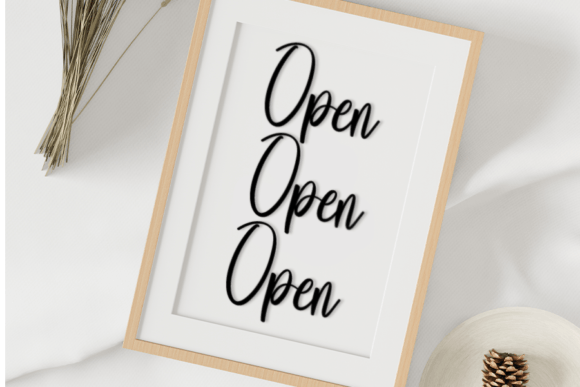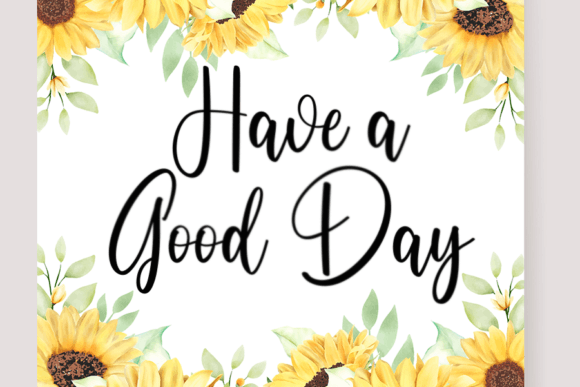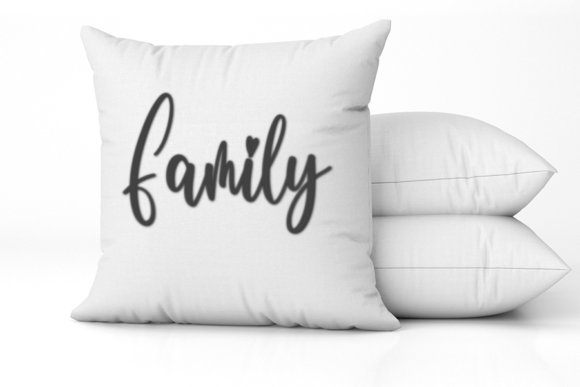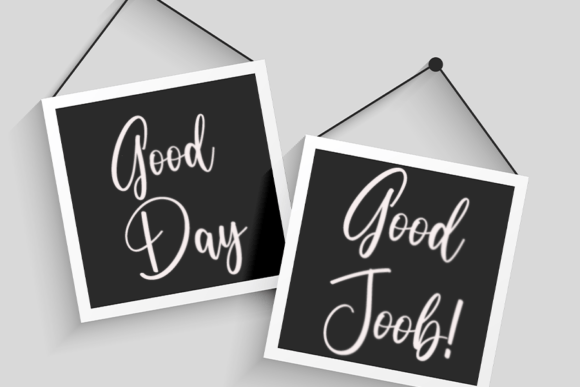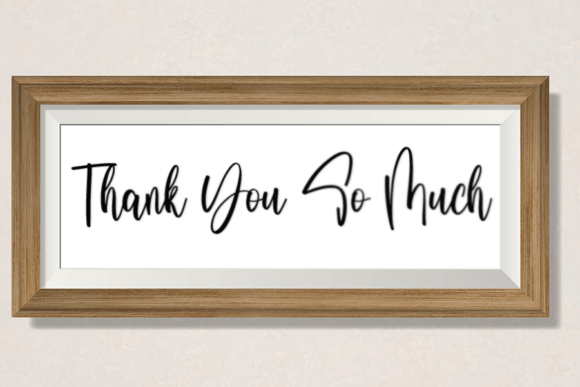
Babies Font: Elevate Your Design with Elegant Handwritten Charm
In the world of design, fonts play a pivotal role in conveying the tone and aesthetic of a project. Among the myriad of fonts available, Babies Font stands out for its unique blend of elegance and playfulness. This gorgeous handwritten font is designed to make your work stand out through its elegant and curvy lines, making it perfect for a wide range of applications.
The Charm of Babies Font
Babies Font is characterized by its smooth, flowing lines and a sweet, handwritten touch. Its elegance lies in its simplicity and the organic feel it brings to any design. Whether you’re working on product packaging, branding projects, magazine covers, social media posts, or wedding invitations, Babies Font adds a personal and intimate feel that captivates the audience.
One of the key advantages of Babies Font is its versatility. It can seamlessly transition across various mediums and projects, including:
• Product Packaging: Add a personal touch to your product labels and packaging, making your products stand out on the shelves.
• Branding Projects: Consistency in branding is crucial, and Babies Font can help create a uniform and recognizable brand voice.
• Magazine Covers: Grab the attention of readers with a elegant and inviting font on your magazine covers.
• Social Media Posts: Elevate your social media presence with stylish and engaging posts.
• Weddings: Make your wedding invitations, programs, or decor stand out with a touch of elegance and romance.
Why Choose Babies Font?
There are several reasons why designers and crafters might prefer Babies Font over other fonts:
• Elegance: It brings a level of sophistication and elegance to your designs.
• Uniqueness: Stand out from the crowd with a font that is both stylish and distinctive.
• Readability: Despite its elegant and curvy lines, Babies Font maintains a high level of readability.
• Flexibility: It can be used for both digital and print projects, offering great flexibility.
Tips for Using Babies Font Effectively
To make the most out of Babies Font, consider the following tips:
• Pair it Wisely: Combine Babies Font with complementary fonts to create visual interest.
• Adjust Size and Color: Experiment with different sizes and colors to emphasize certain parts of your text.
• Use it Sparingly: While Babies Font is elegant, using it sparingly can make it more impactful.
Babies Font is more than just a font; it’s a design element that can elevate your projects with its elegant and curvy lines. Whether you’re a professional designer or a crafter, this gorgeous handwritten font offers a simple yet effective way to add a personal touch to your work. Its versatility, elegance, and readability make it an excellent choice for a wide range of applications. So, if you’re looking to make your designs stand out with a sweet, handwritten touch, Babies Font is undoubtedly worth considering.
Embrace the elegance and charm of Babies Font in your next project and experience the difference it can make.